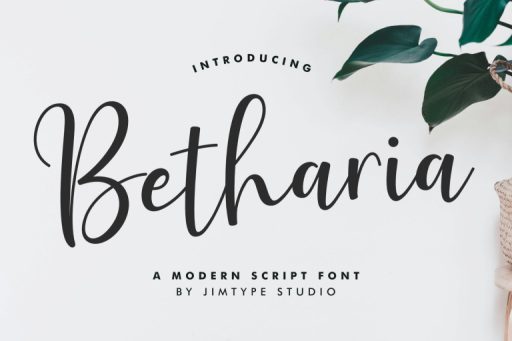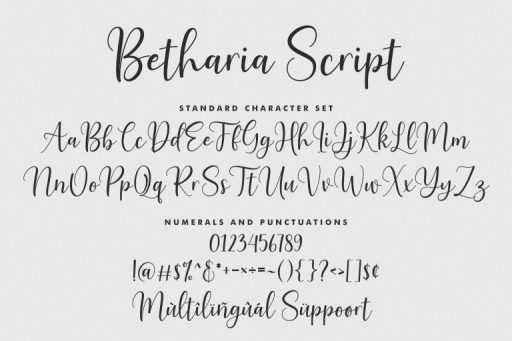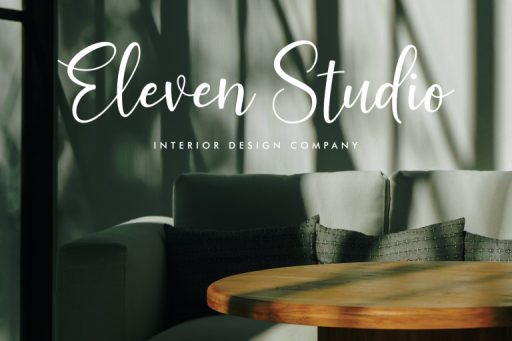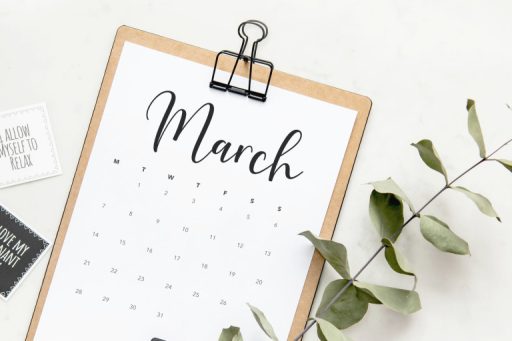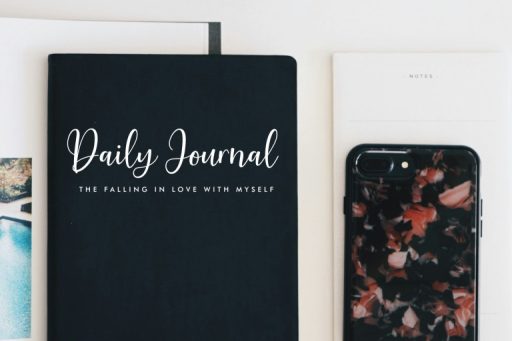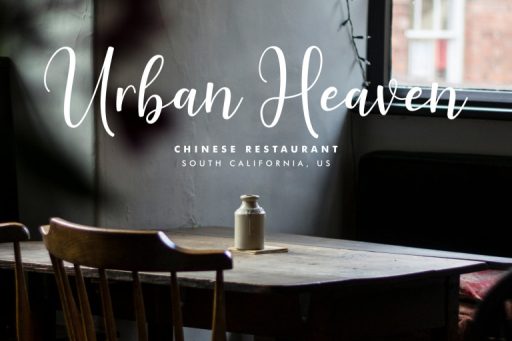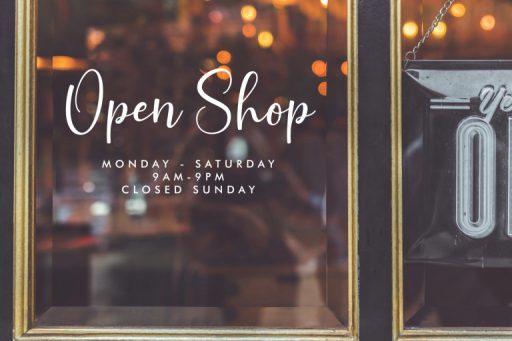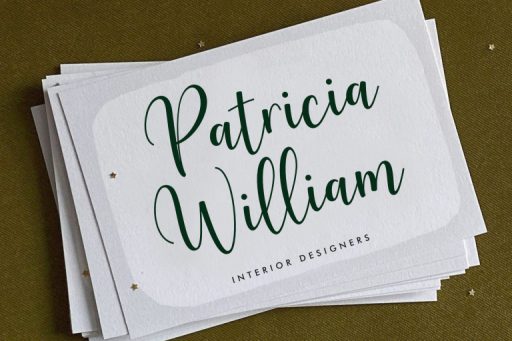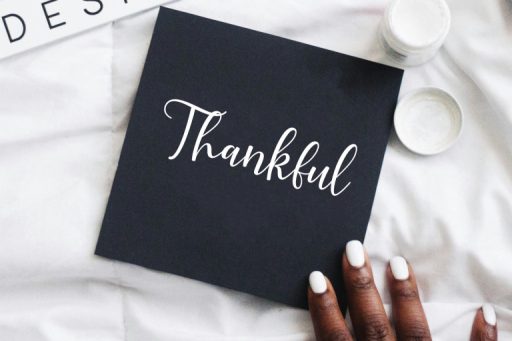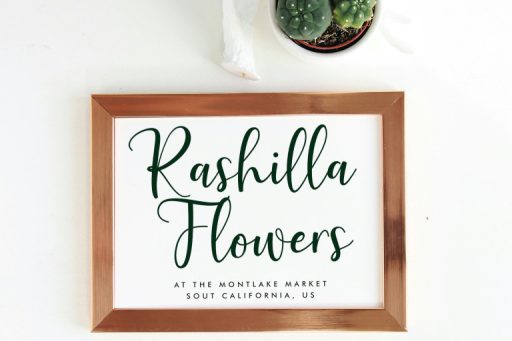
Betharia Font - Business Branding Font from Jimtype Studio
Betharia Font
Introducing Betharia Script Font, a modern script font designed to elevate your branding projects, logo, daily journaling, envelope designs, and signage.
Establish a strong brand identity with Betharia Script Font. Whether used in logos, marketing materials, or product packaging, this font adds a modern and professional flair to your branding efforts.